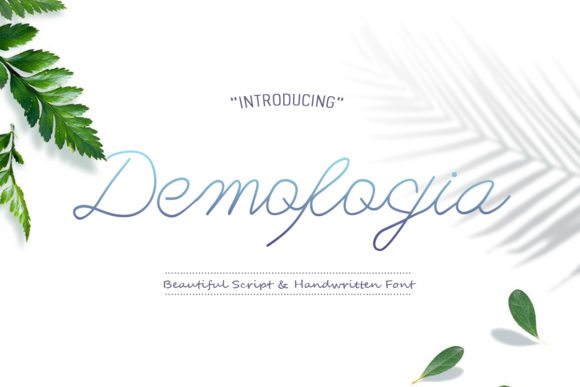
Introducing Demofogia, the font that will make your beauty brand shine!
Demofogia is a beautiful and stylish script font that will give your brand a touch of elegance and sophistication. With its clean, thin, and smooth lines, Demofogia is perfect for creating logos, headers, and other marketing materials that will capture the attention of your audience.
But Demofogia is more than just a pretty face. It's also incredibly versatile, so you can use it for a wide variety of projects. Whether you're creating a website, a social media post, or a print ad, Demofogia will help you create stunning visuals that will make your brand stand out from the competition.
* It's beautiful and stylish, and it will give your brand a touch of elegance and sophistication.
* It's versatile and can be used for a wide variety of projects.